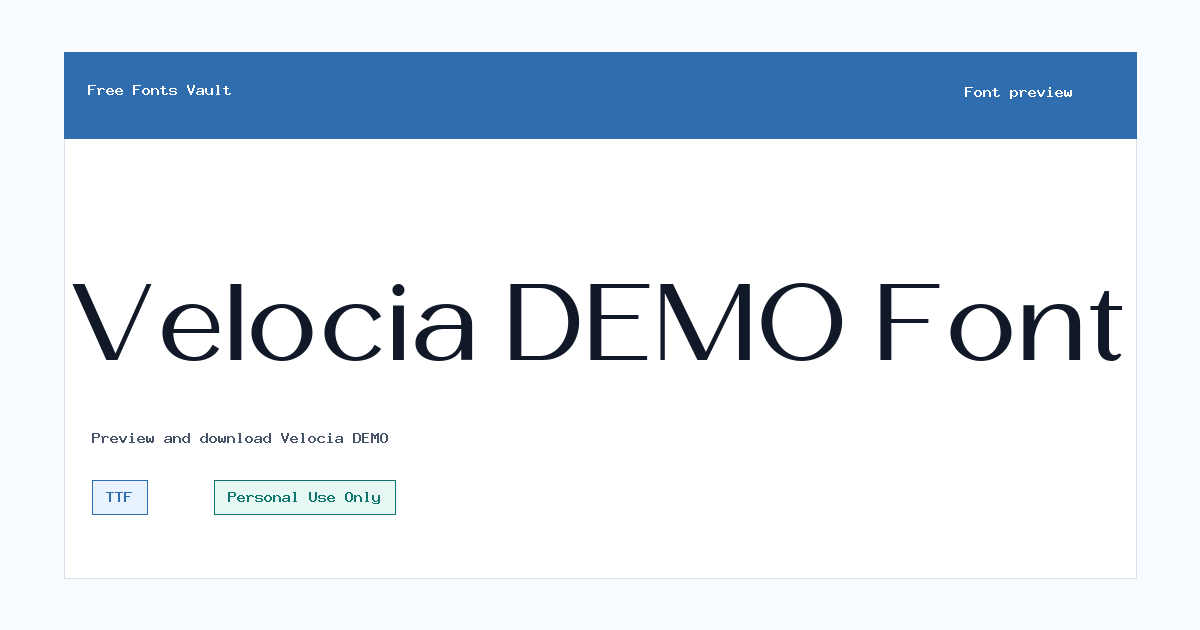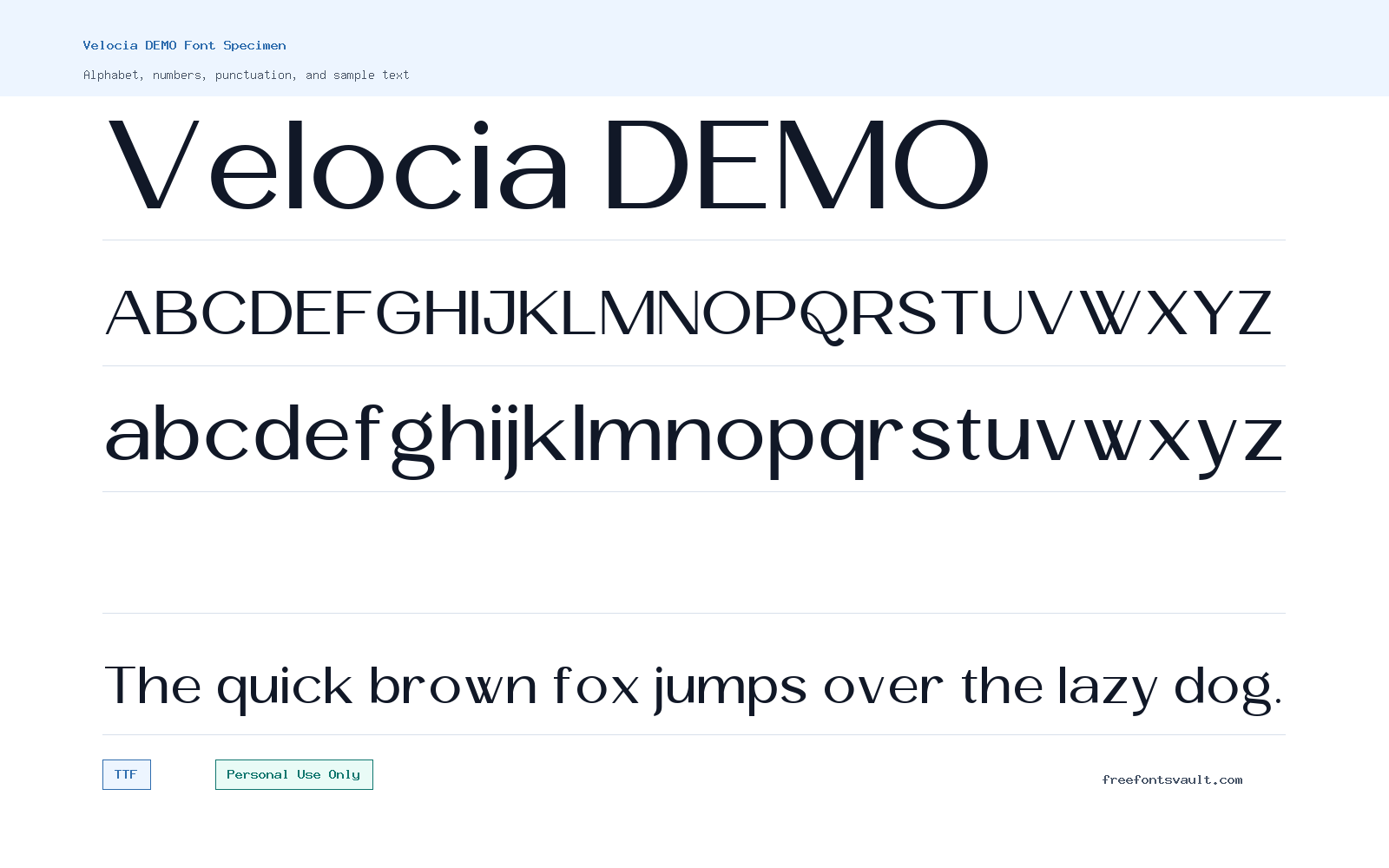
Velocia DEMO
Velocia DEMO is a personal-use font from Say Studio with a clean, modern display feel. It is a practical choice when you want to test bold visual ideas in logos, posters, headings, social graphics, and layout mockups before deciding whether it fits a larger project.
For logo work, try the font in uppercase, lowercase, and mixed-case settings before committing to a direction. A demo font can look very different once spacing, letter combinations, and word length change. Test the exact brand name, not just sample words. In posters and web mockups, check the font at several sizes and on both light and dark backgrounds. If the design uses tight tracking or very large type, inspect letters with diagonal strokes, curves, and repeated characters so the spacing still feels balanced. Because the license is Personal Use Only, it is suitable for personal experiments, previews, and non-commercial drafts, but commercial projects need permission or a commercial license from the rights holder.
- Useful for display typography, logo drafts, titles, and visual mockups
- Single-style family, so pairing with a separate body font is recommended
- Logo concepts and brand name tests
- Poster titles and event-style graphics
- Website hero headings and landing page mockups
- Social media graphics, thumbnails, and short promotional layouts
- Packaging concepts, mood boards, and personal design experiments
Use Velocia DEMO for short text first. Test your exact words in the preview tool, then check spacing, readability, and contrast at the size you plan to use. For web mockups and editorial layouts, combine it with a neutral sans serif or readable serif for paragraphs so the design stays clear. If you are preparing a logo or brand system, keep the file as a concept-stage option until the licensing terms are confirmed for commercial use.
What should I pair with Velocia DEMO?
Pair it with a clean, readable text font. A neutral sans serif works well for modern layouts, while a simple serif can add contrast in editorial-style mockups.
Is Velocia DEMO good for body text?
It is better for short display text than long paragraphs. Use it for titles, names, and key phrases, then choose a more readable font for body copy.